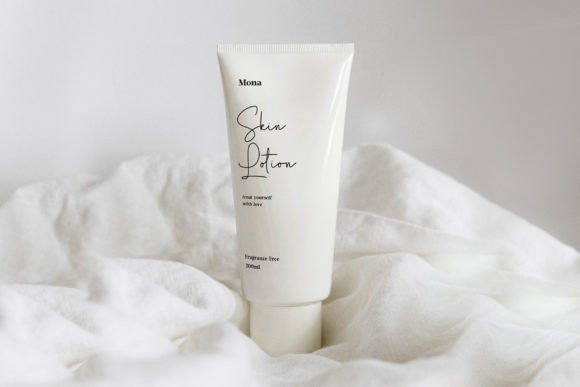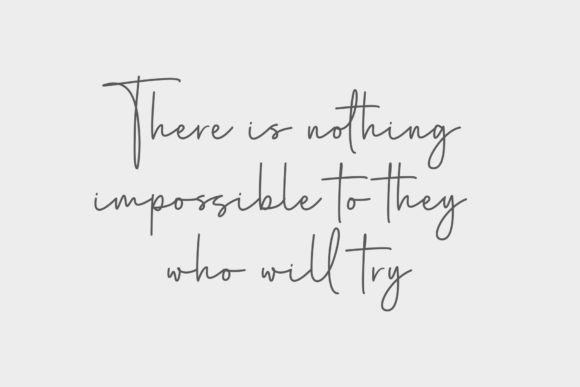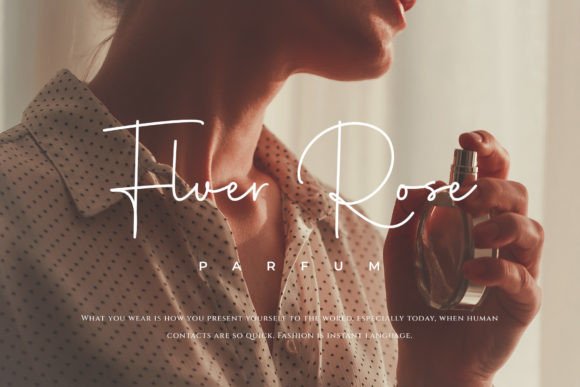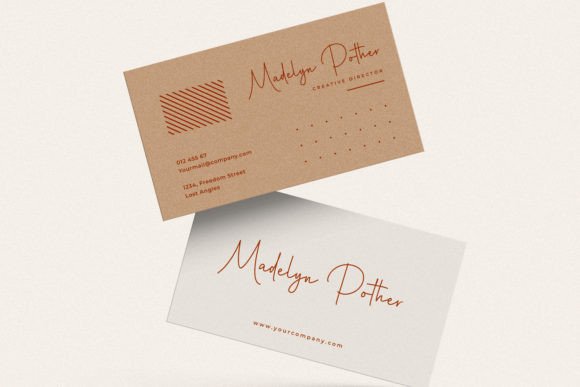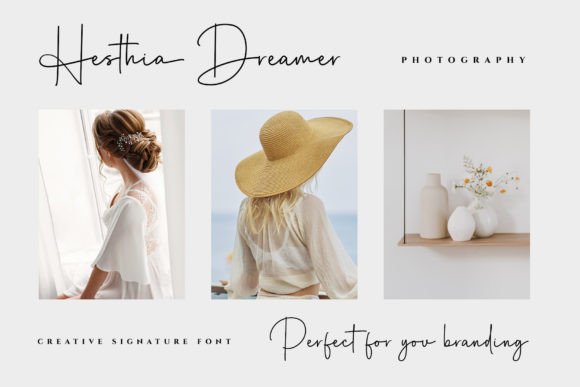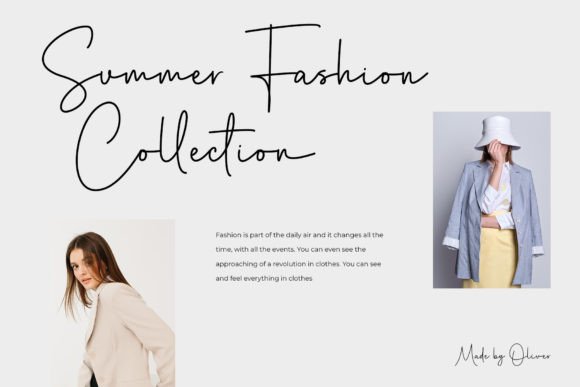
Discover the Elegance of Anagatha Font: Elevate Your Design Projects
When it comes to selecting the perfect font for your design projects, the options can be overwhelming. However, if you’re looking for a font that exudes elegance, sophistication, and versatility, look no further than the Anagatha Font. This stunning font is a great choice for a wide range of design applications, including watermarks on photography, signature logo designs, quotes, album covers, magazines, business cards, and many other creative projects.
What Makes Anagatha Font Stand Out?
Anagatha Font boasts a unique and captivating aesthetic that sets it apart from other fonts. Its elegant and refined design makes it perfect for projects where you want to convey a sense of luxury, sophistication, and style. The font’s versatility is one of its most significant advantages, allowing you to use it across various design projects, from print to digital media.
Perfect for Watermarks on Photography
Photographers often struggle to find the right font for their watermarks, as it needs to be subtle yet noticeable. Anagatha Font is an excellent choice for watermarks on photography, as it adds a touch of elegance and sophistication to your images without overpowering them. Its delicate design ensures that your watermark doesn’t distract from the image, while still providing a professional and branded look.
Elevate Your Signature Logo Designs
Your signature logo is a representation of your brand’s identity, and the font you choose can make or break its impact. Anagatha Font is an excellent choice for signature logo designs, as it exudes professionalism and style. Its elegant design ensures that your logo stands out, while its versatility allows you to use it across various mediums, from business cards to website headers.
Inspire with Quotes and Typography
Quotes and typography are an excellent way to add visual interest to your designs, and Anagatha Font is the perfect choice for showcasing your favorite quotes. Its elegant design and flowing curves make it easy to read and visually appealing, ensuring that your quotes stand out and inspire your audience.
Perfect for Album Covers and Magazines
Music and publishing industries require fonts that are both stylish and legible, and Anagatha Font fits the bill. Its elegant design makes it perfect for album covers, magazine titles, and other publication designs. The font’s versatility ensures that it can be used across various genres, from music to fashion and lifestyle publications.
Business Cards and Beyond
Anagatha Font is not limited to large-scale design projects; it’s also perfect for smaller applications like business cards. Its elegant design and compact style make it easy to read and visually appealing, ensuring that your business card stands out in a crowded space.
Why Choose Anagatha Font?
So, why should you choose Anagatha Font for your design projects? Here are just a few reasons:
- Elegance and Sophistication: Anagatha Font exudes elegance and sophistication, making it perfect for high-end design projects.
- Versatility: The font’s versatility ensures that it can be used across various design projects, from print to digital media.
- Legibility: Anagatha Font is easy to read, making it perfect for body text and captions.
- Unique Aesthetic: The font’s unique design sets it apart from other fonts, ensuring that your designs stand out.
In conclusion, Anagatha Font is an excellent choice for designers and crafters looking to elevate their design projects. Its elegance, sophistication, and versatility make it perfect for a wide range of applications, from watermarks on photography to signature logo designs, quotes, album covers, magazines, business cards, and beyond. With Anagatha Font, you can add a touch of luxury and style to your designs, ensuring that they stand out in a crowded space.